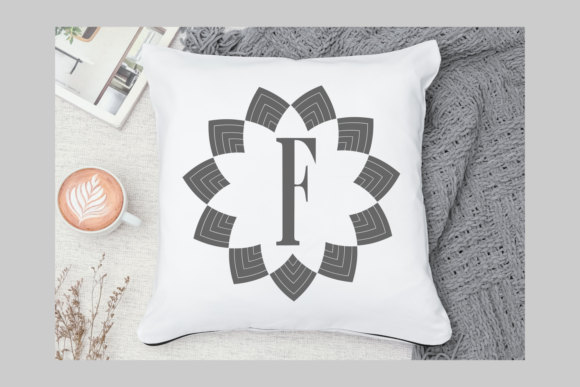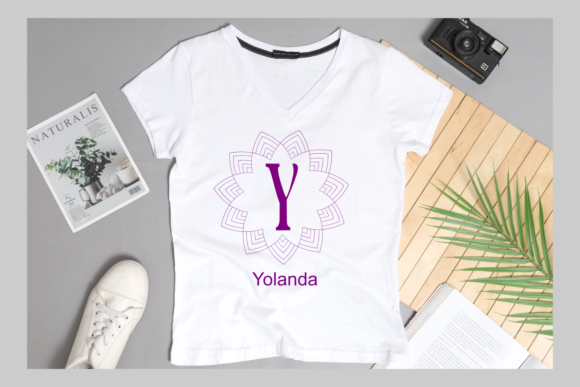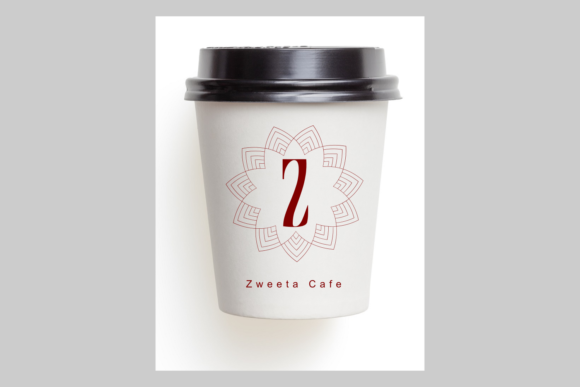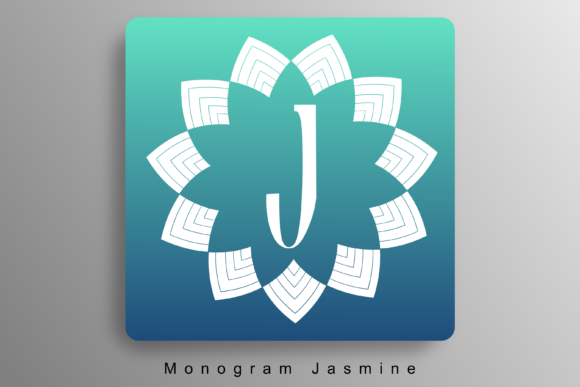
Introduction to Monogram Jasmine Font
Monogram Jasmine is a highly detailed and beautiful decorative font.
Add this lovely-looking font to each of your love letters, wedding invitations, or favorite design ideas, and you will be astounded by the outcome .
Key Features of Monogram Jasmine Font
Why Choose Monogram Jasmine Font?